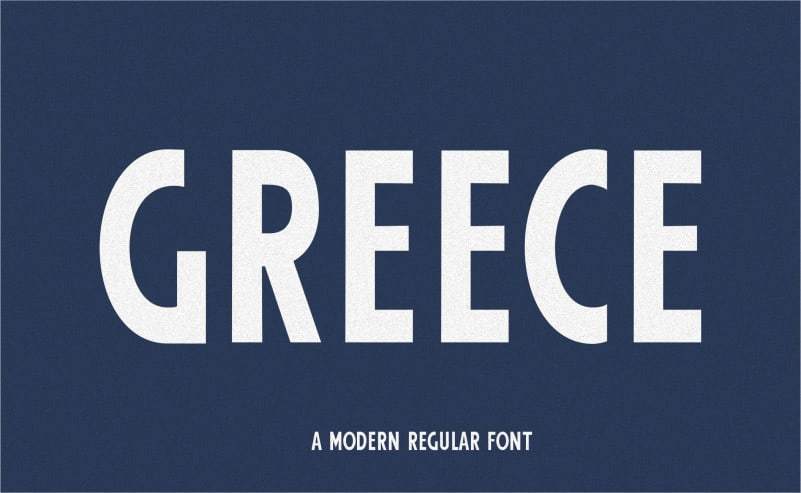
Greece Modern Sans Serif Font
Introducing Greece Modern Sans Font is grunge style. So it looks natural like a handmade. It’s designed and shared by sartstudio. This font is best used for your design project that has the concept of fun, dynamic and elegant.